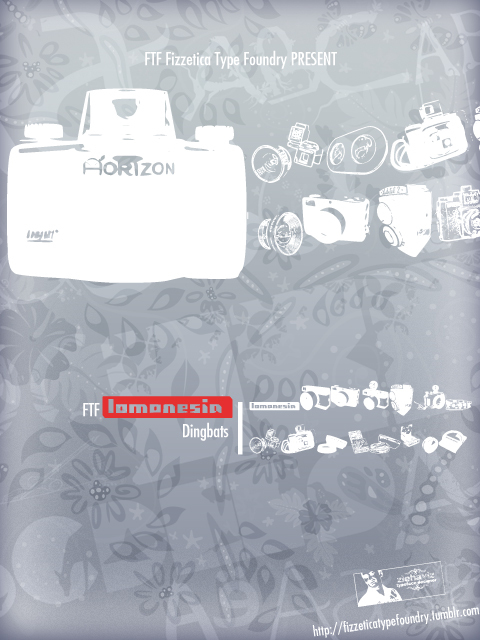
Lomonesia Dingbats by Abdul Hapiz Hilman of Fizzetica Type Foundry is a free art dingbat font centered on photographic equipment. Its solid silhouettes combine crisp cutouts with a mix of vintage camera shapes.
Photography posters are its clearest setting. The symbols also suit camera shop branding, exhibition graphics, and merchandise because they resemble collected equipment rather than generic icons. In editorial design, a camera can become an illustrated section marker instead of ordinary text.